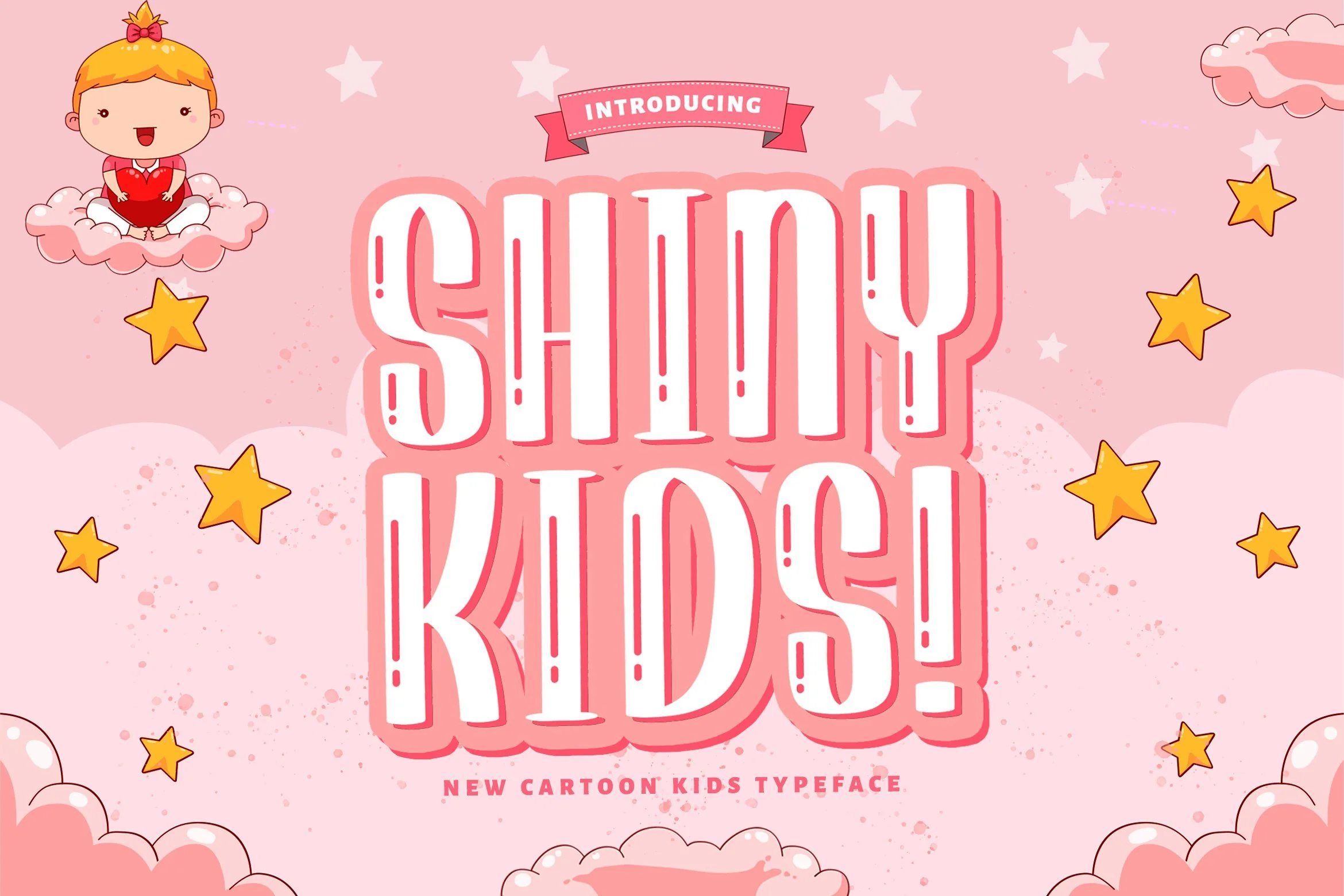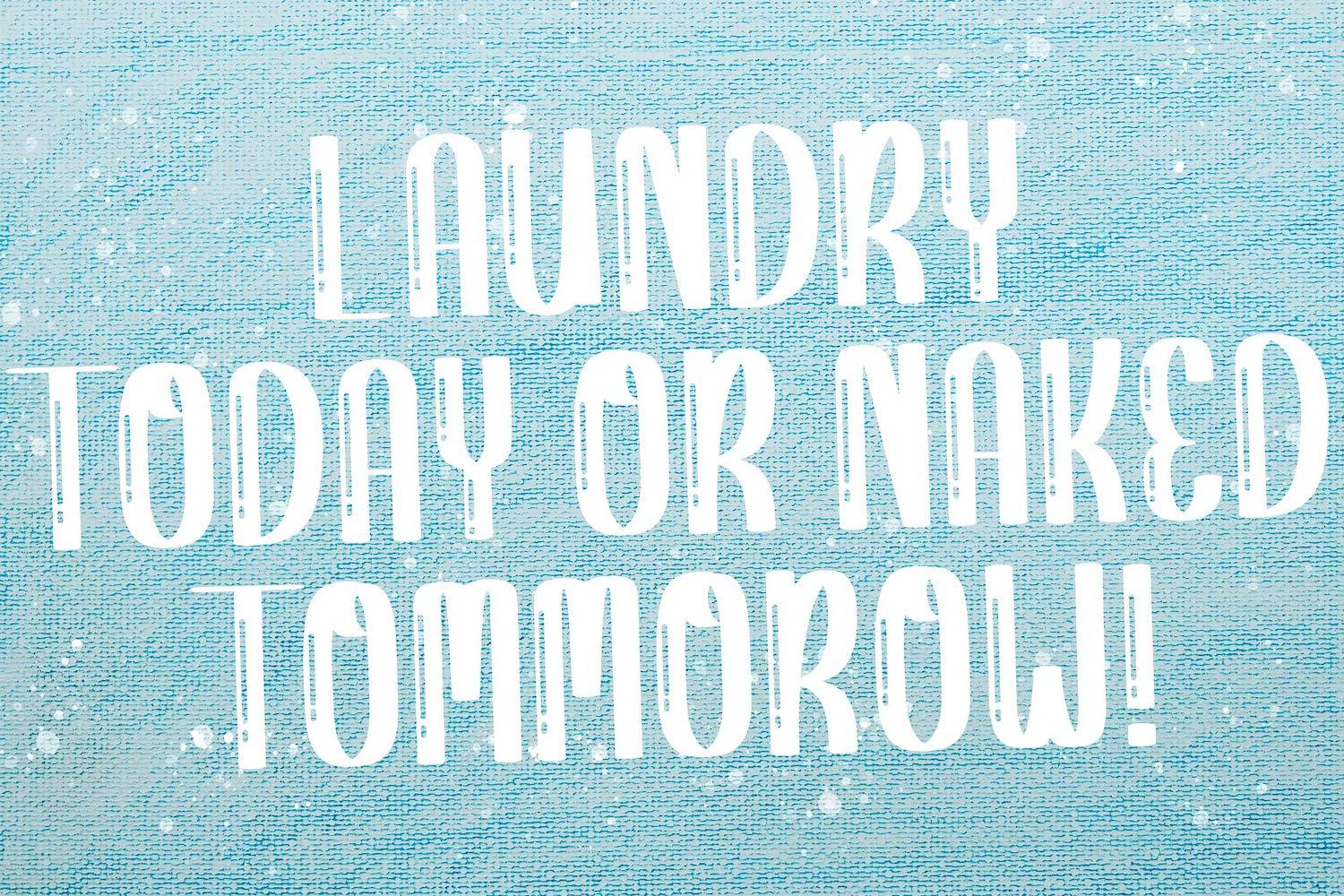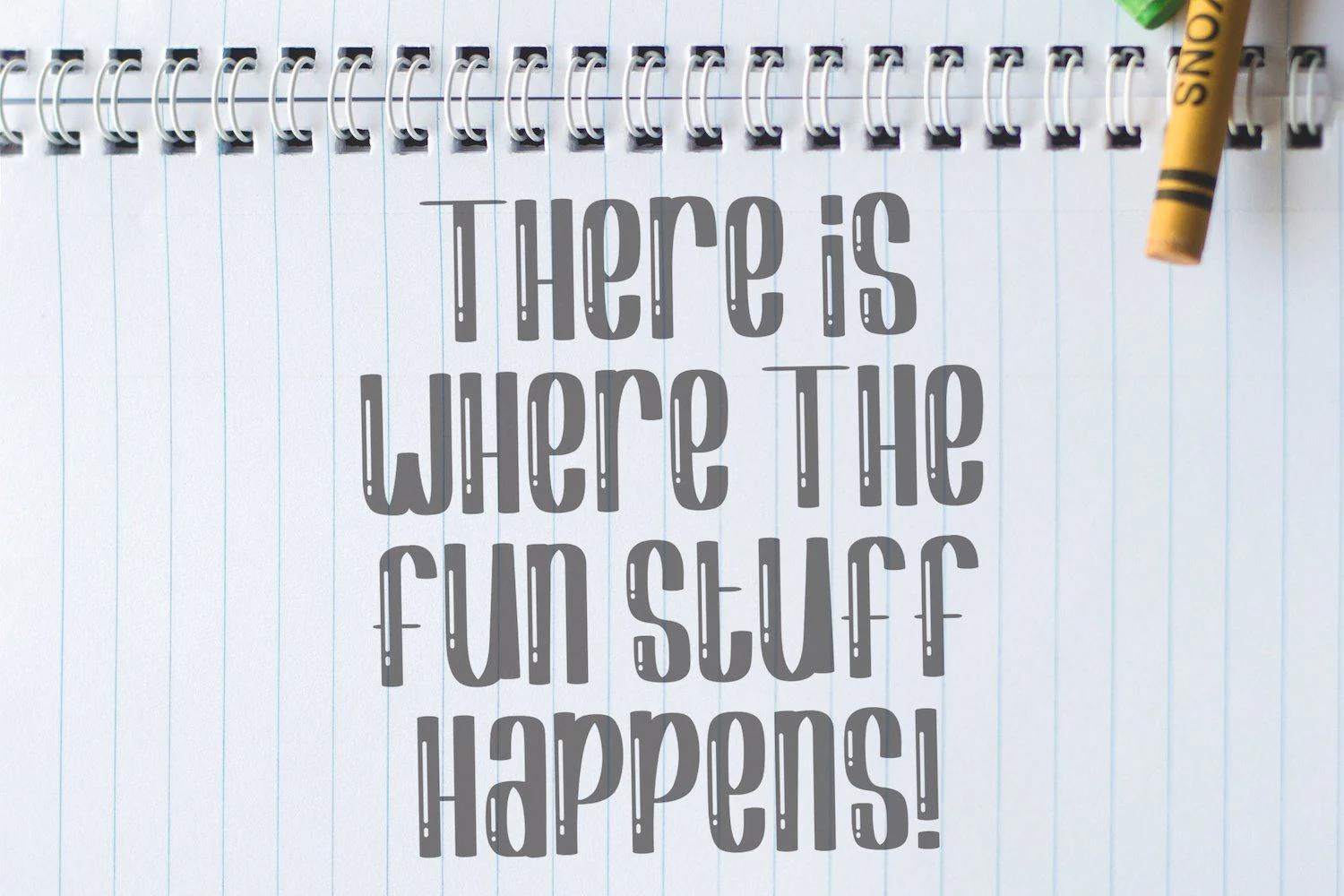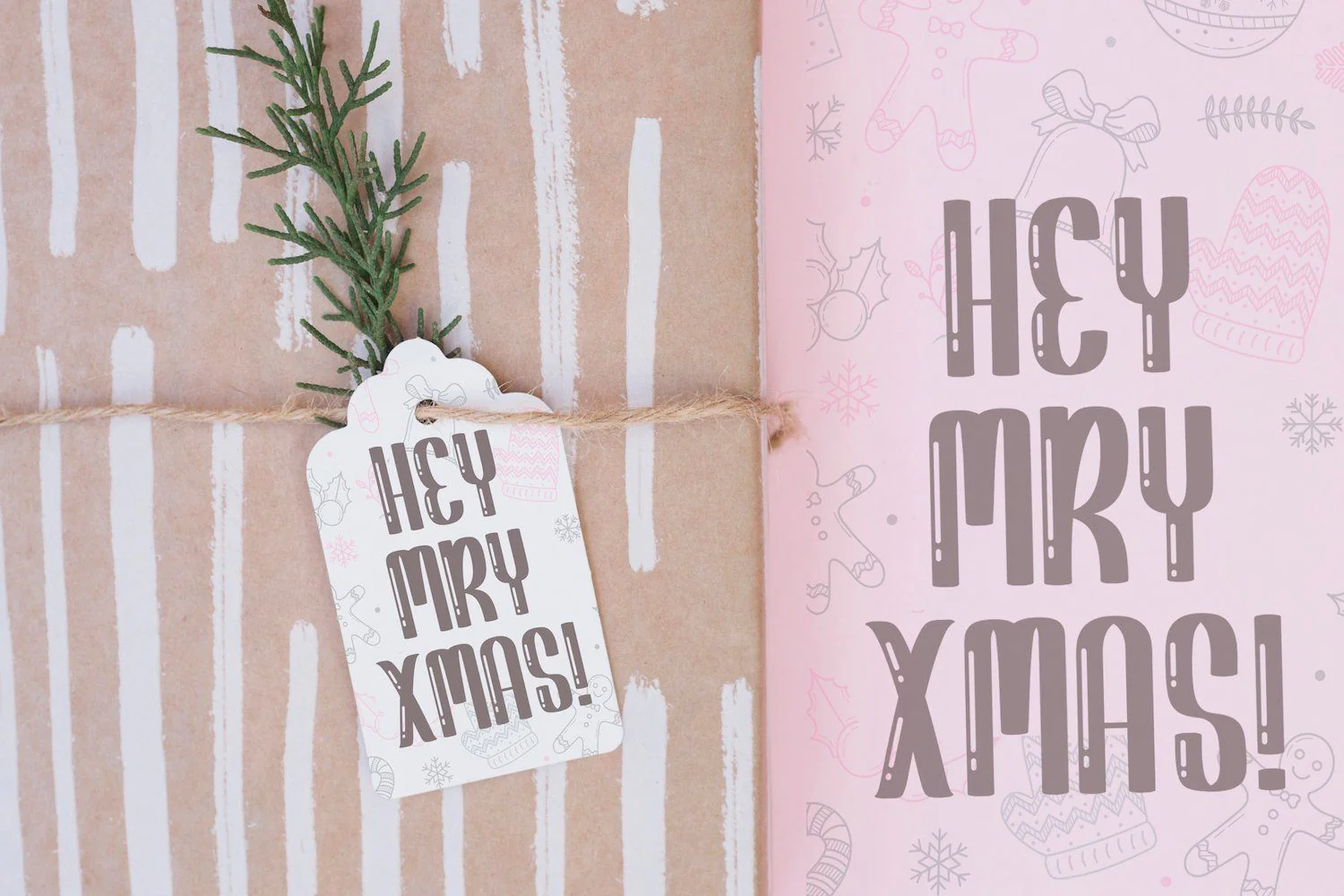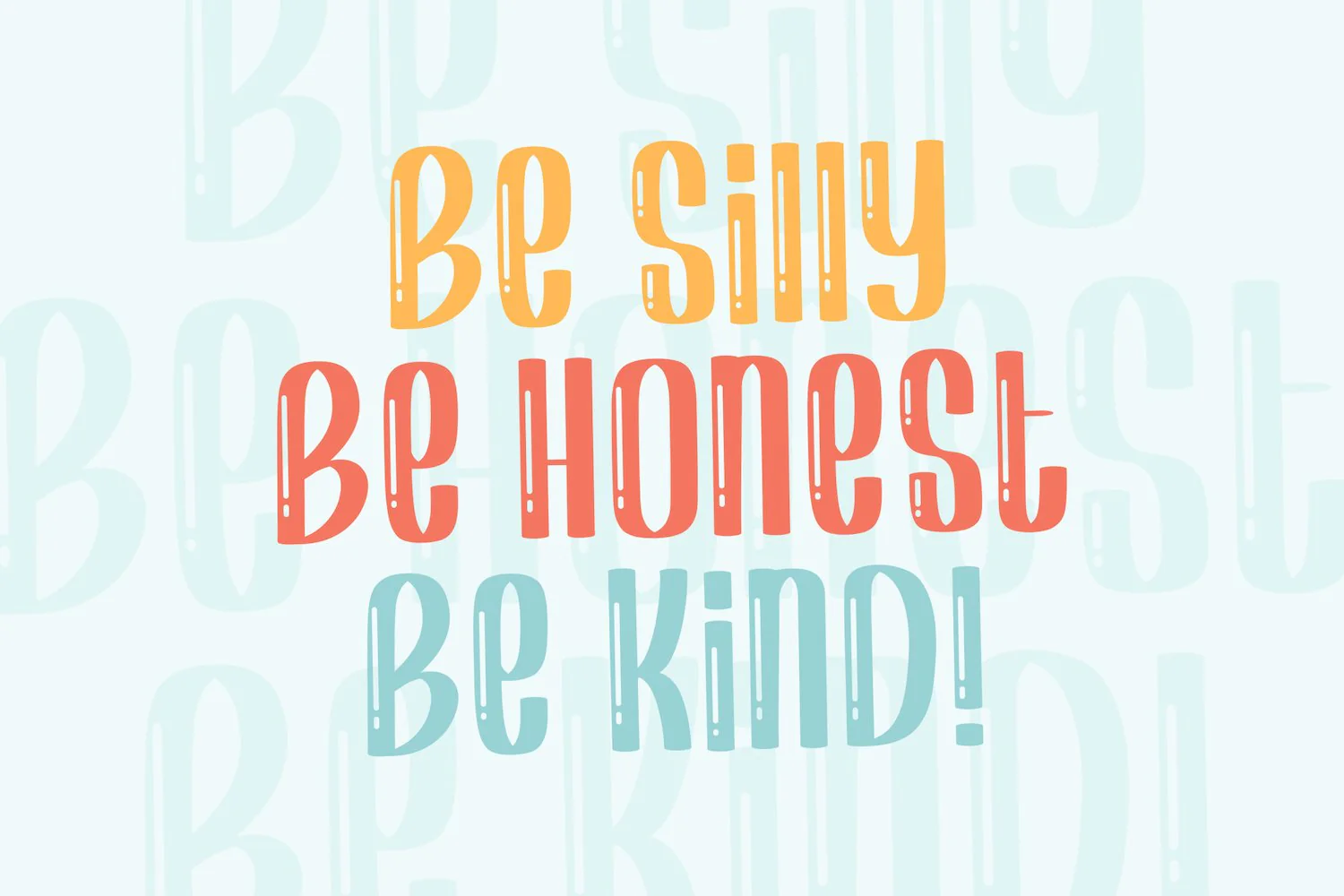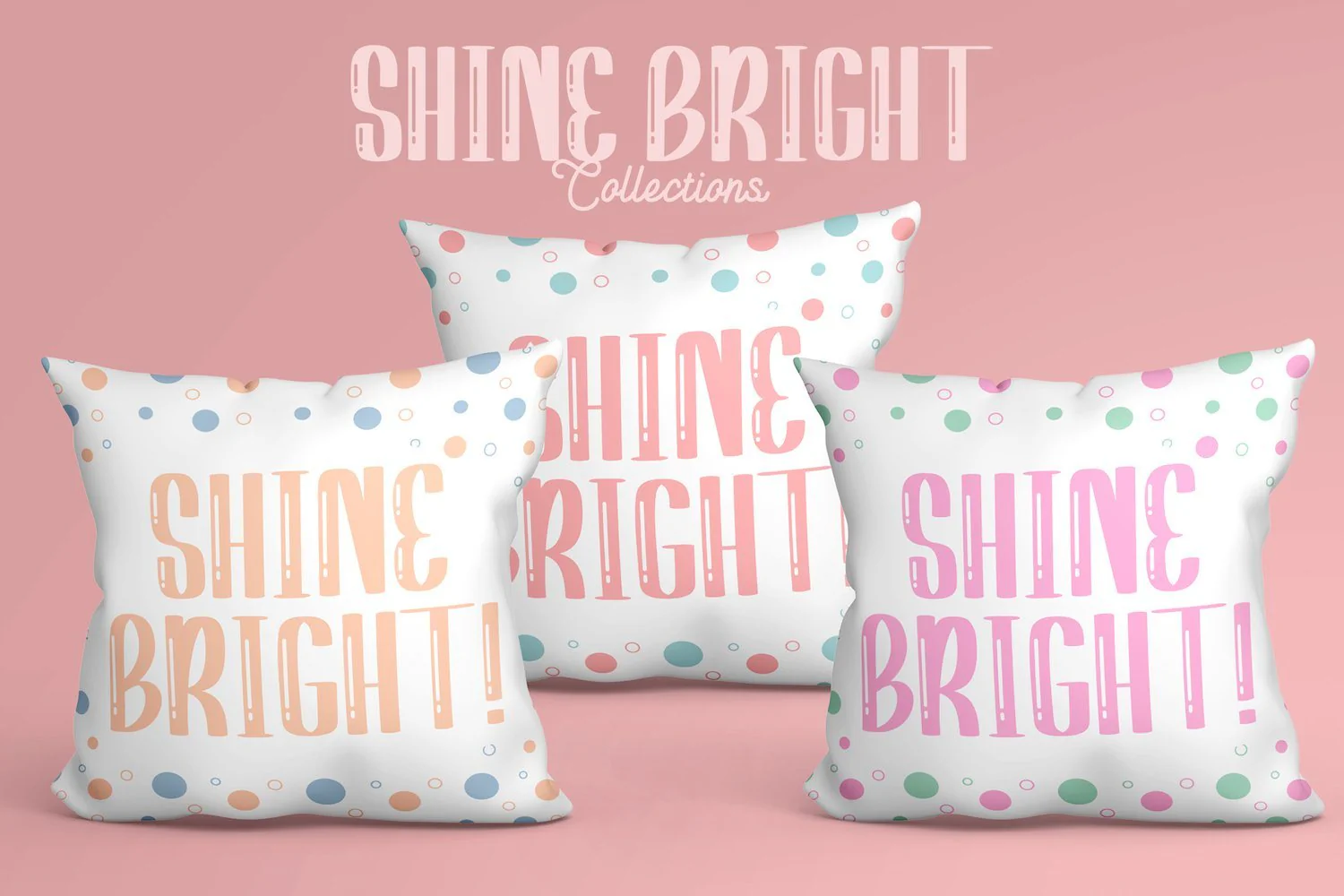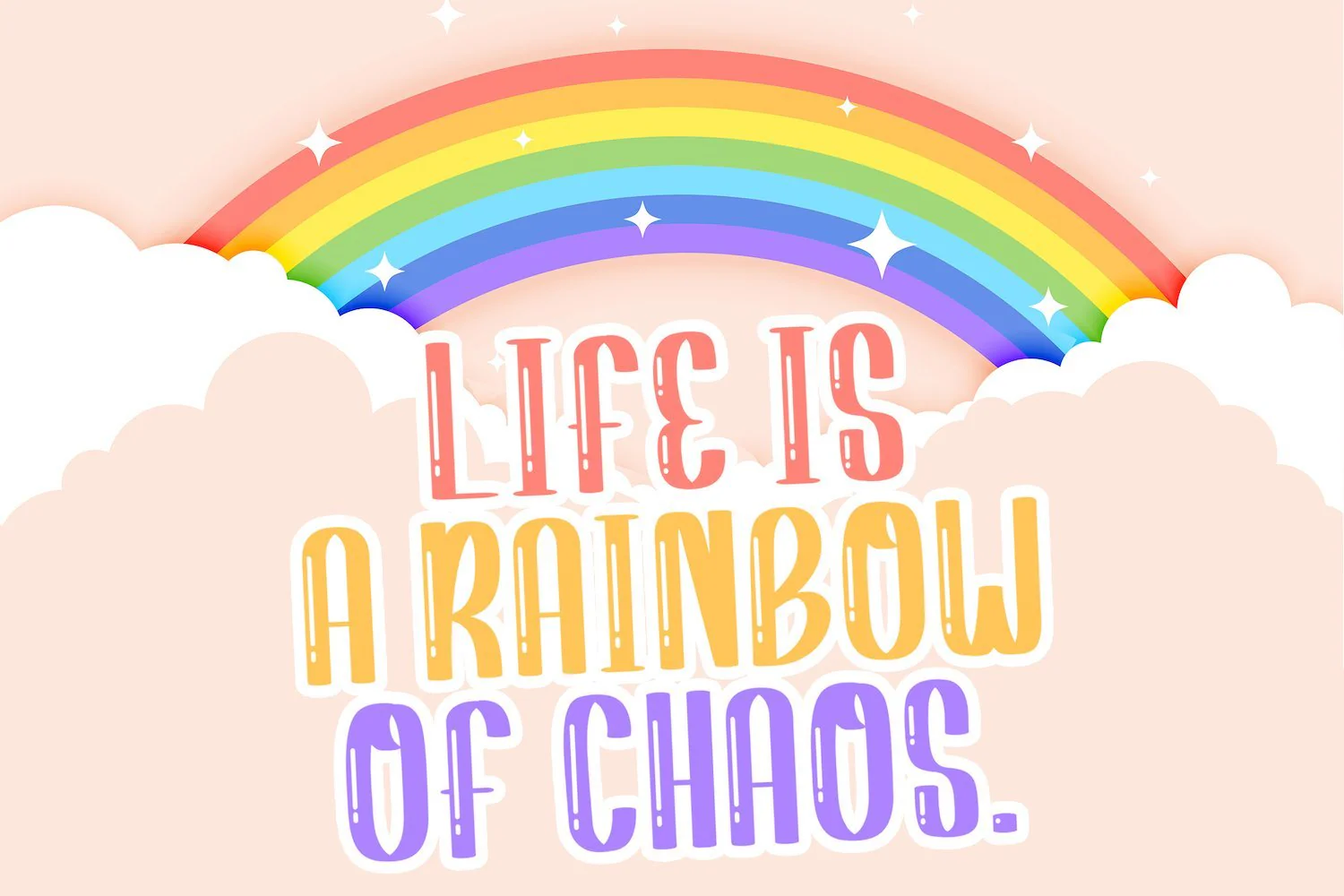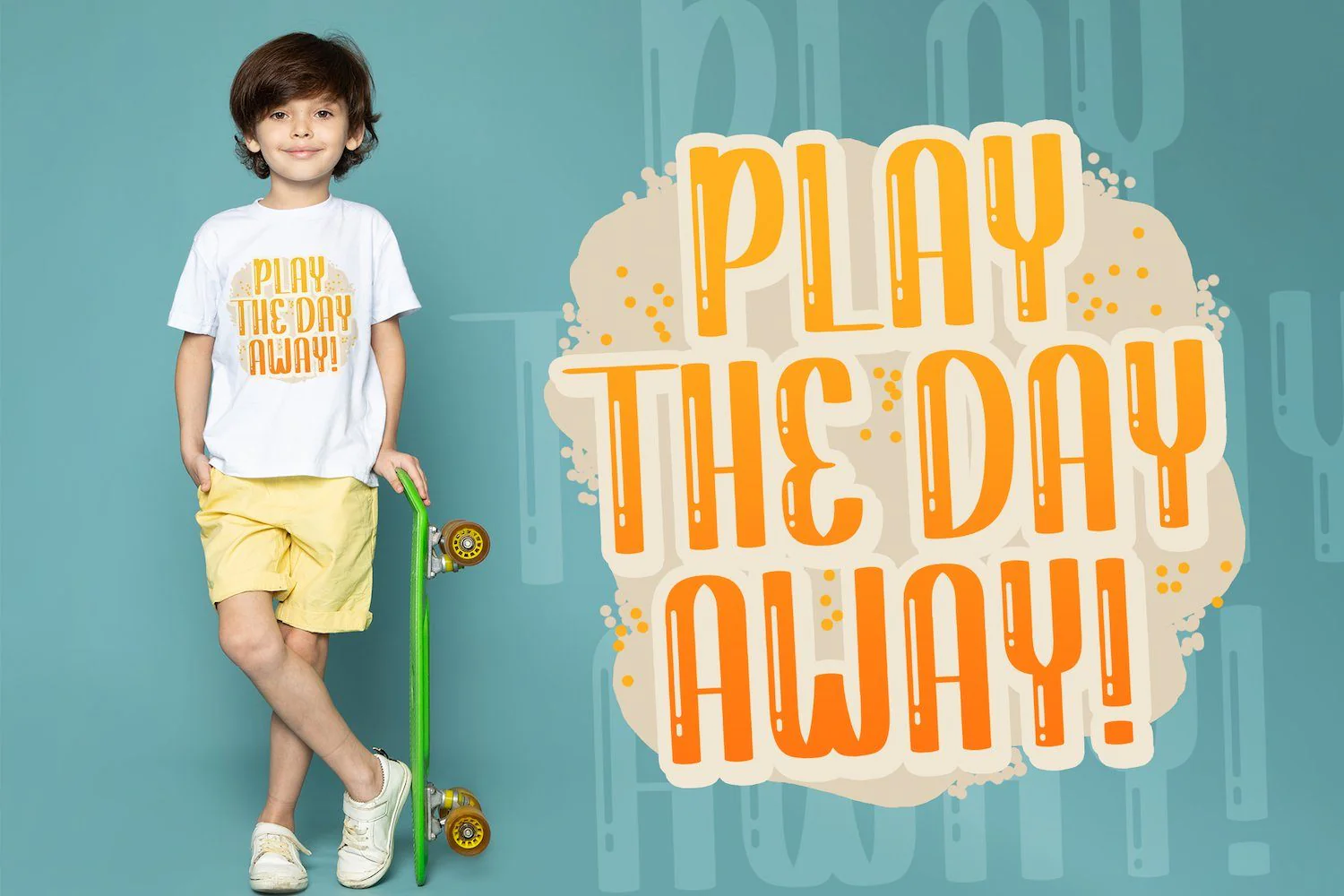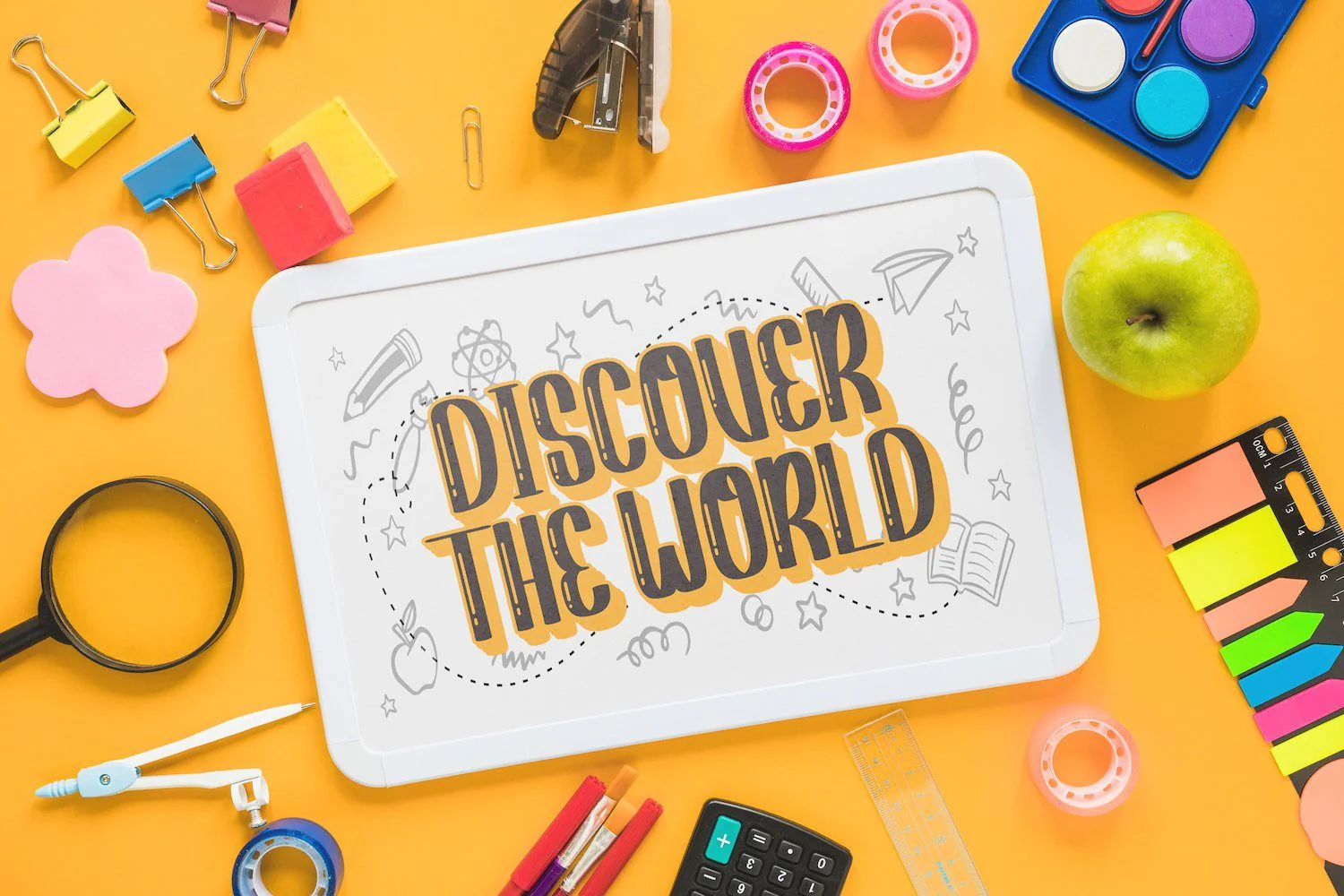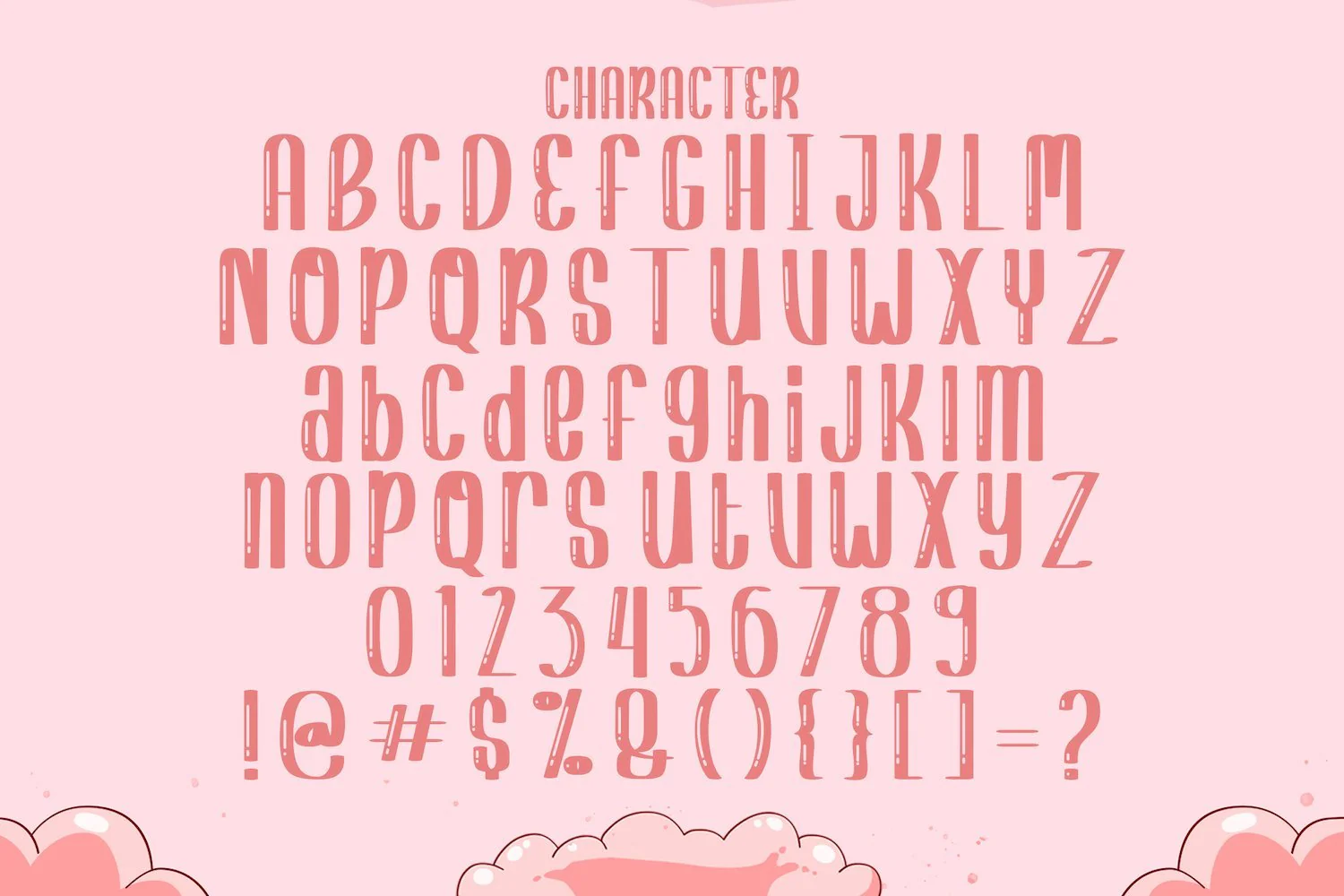
Shiny Kids - Playful Display Font
Introducing Shiny Kids - Playful Display Font
Shiny Kids is a fun display font. Playful and fresh, this font will be a hit for each of your children or school projects!
Introducing Shiny Kids - Playful Display Font
Shiny Kids is a fun display font. Playful and fresh, this font will be a hit for each of your children or school projects!